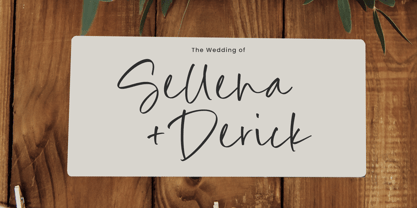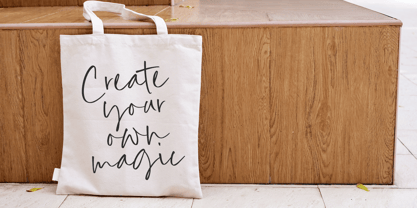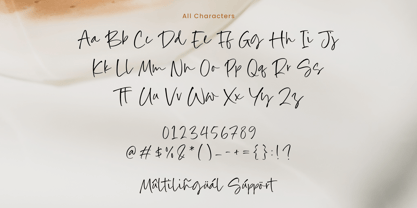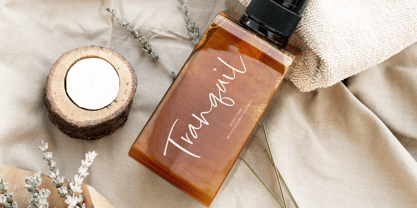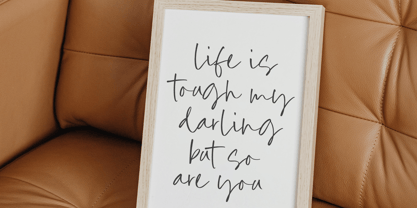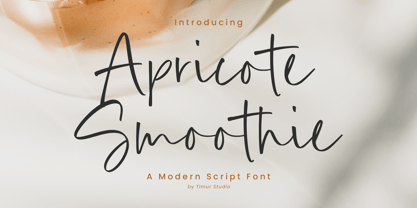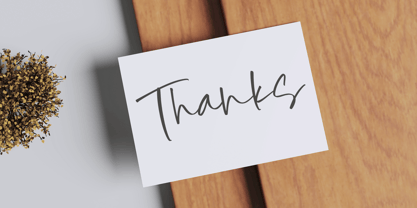
Apricote Smoothie
by Timurtype
The Apricote Smoothie Font Family was designed by Wara Sigit Tri Pamungkas and published by Timurtype. Apricote Smoothie contains 1 styles.
Introduced by Timurtype Studio!
Apricote Smoothie is a Modern Script Font
This font is a stylish and elegant modern script font with a smooth, flowing design. Its delicate curves and handwritten aesthetic make it perfect for branding, invitations, logos, and social media graphics. The font balances sophistication with a playful charm, offering a contemporary yet timeless appeal.
Apricote Smoothie Font also supports multilingualism